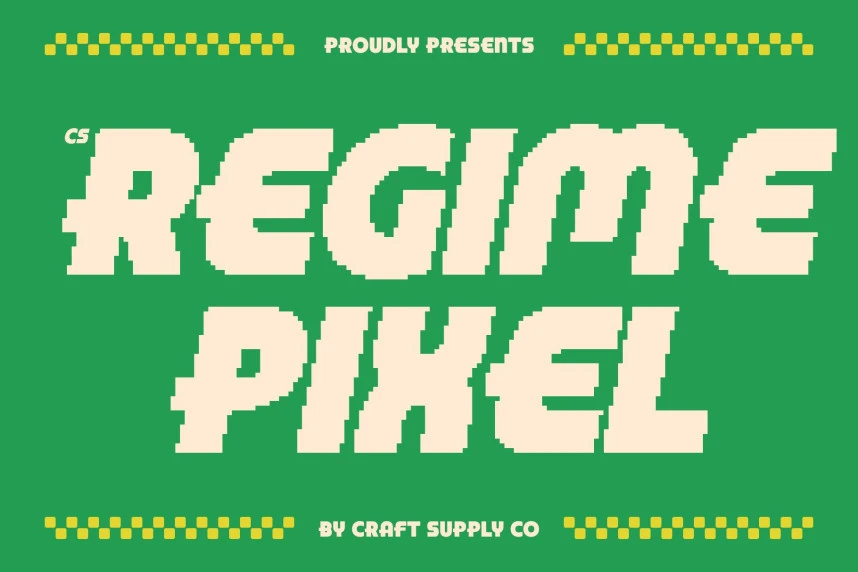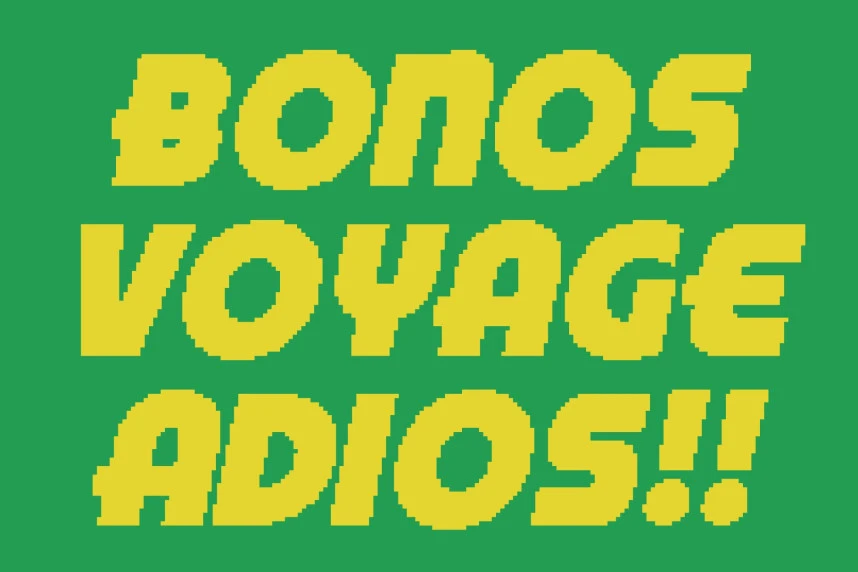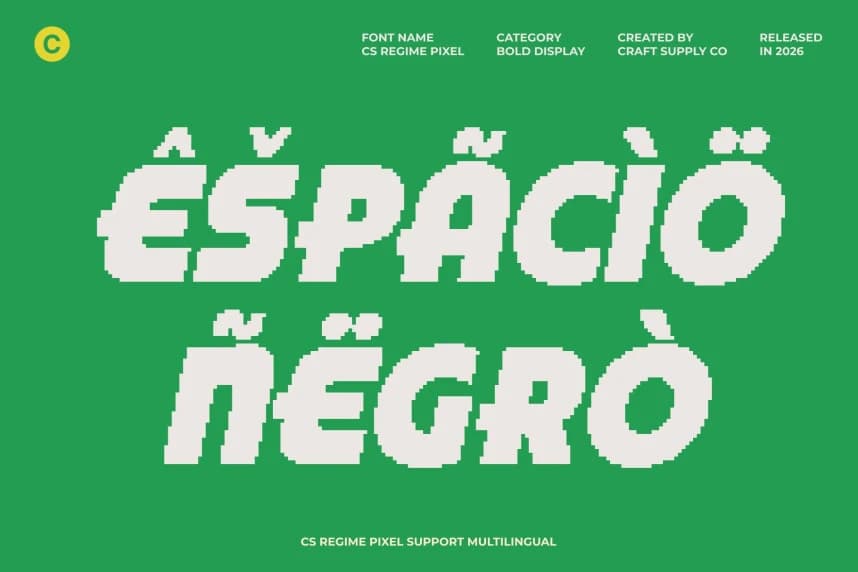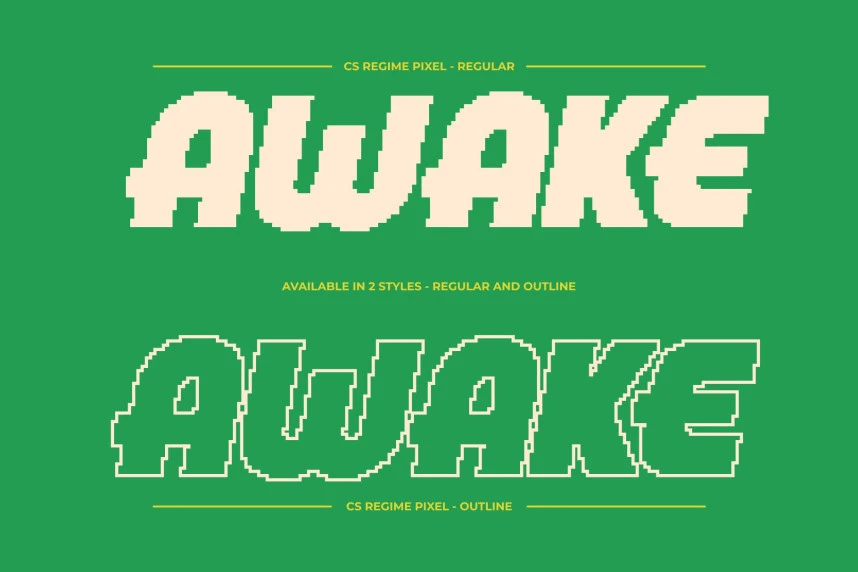
CS Regime Pixel Font
CS Regime Pixel Font – Bold Display Font with Bauhaus-Inspired Geometry Bold Bauhaus Display Font with Pixel Precision. This is a bold display font that fuses Bauhaus-inspired geometry with a crisp pixel-based construction.